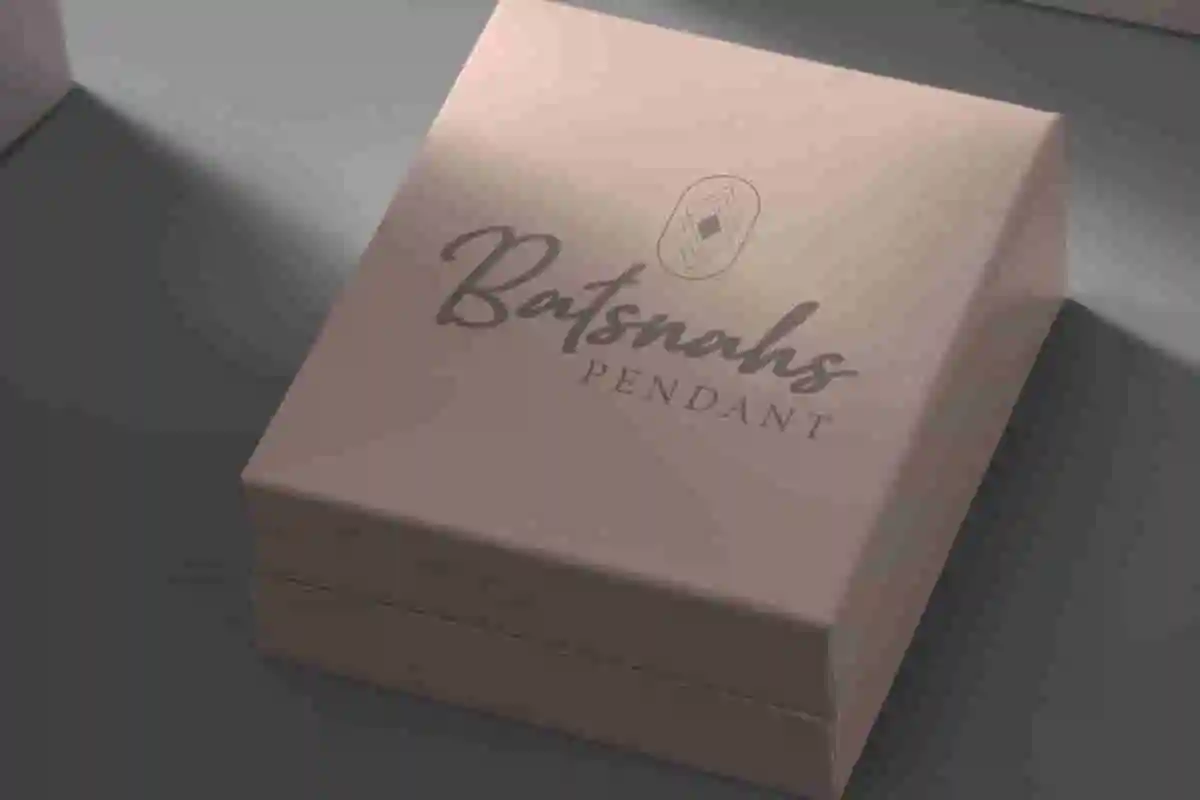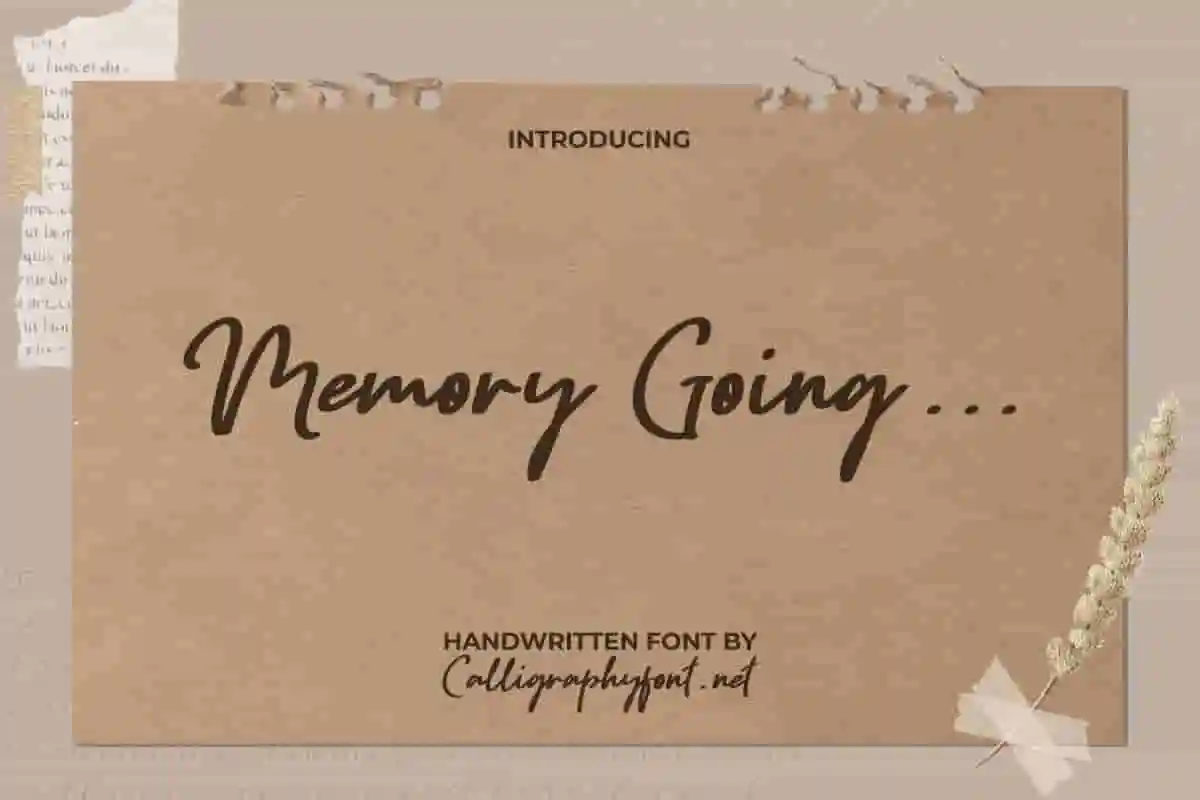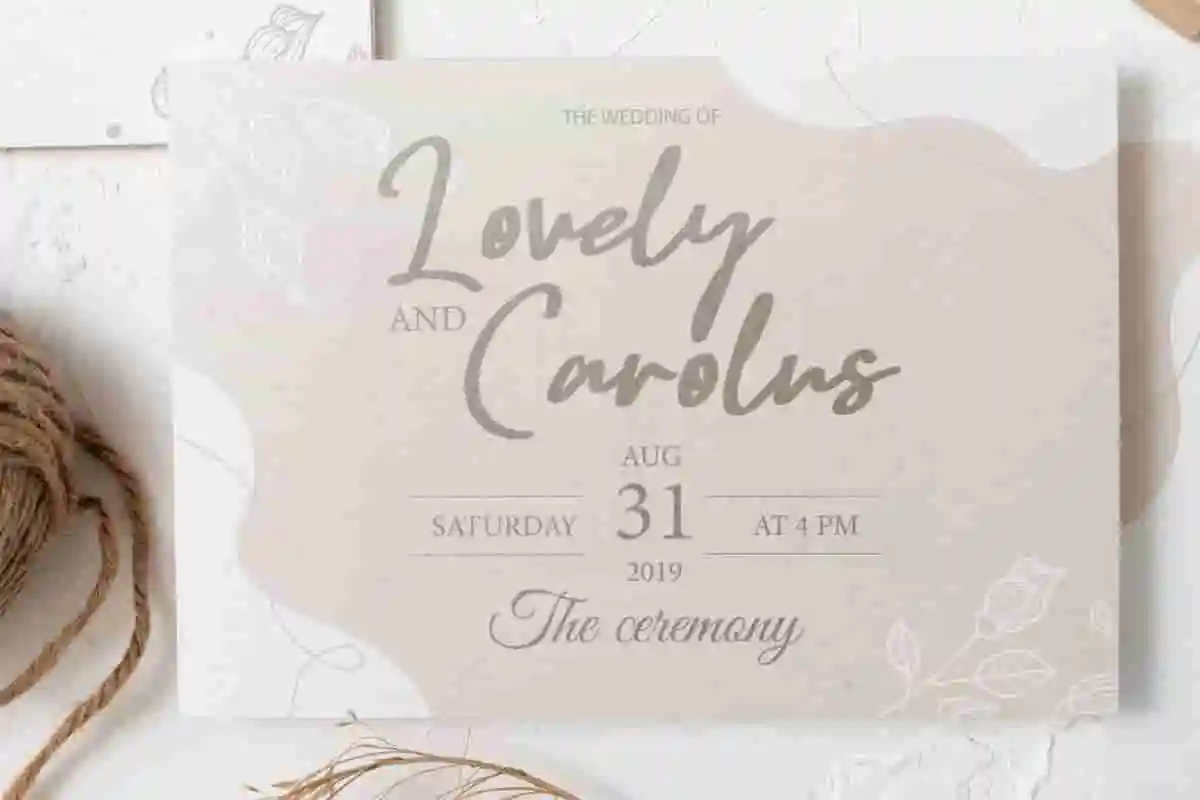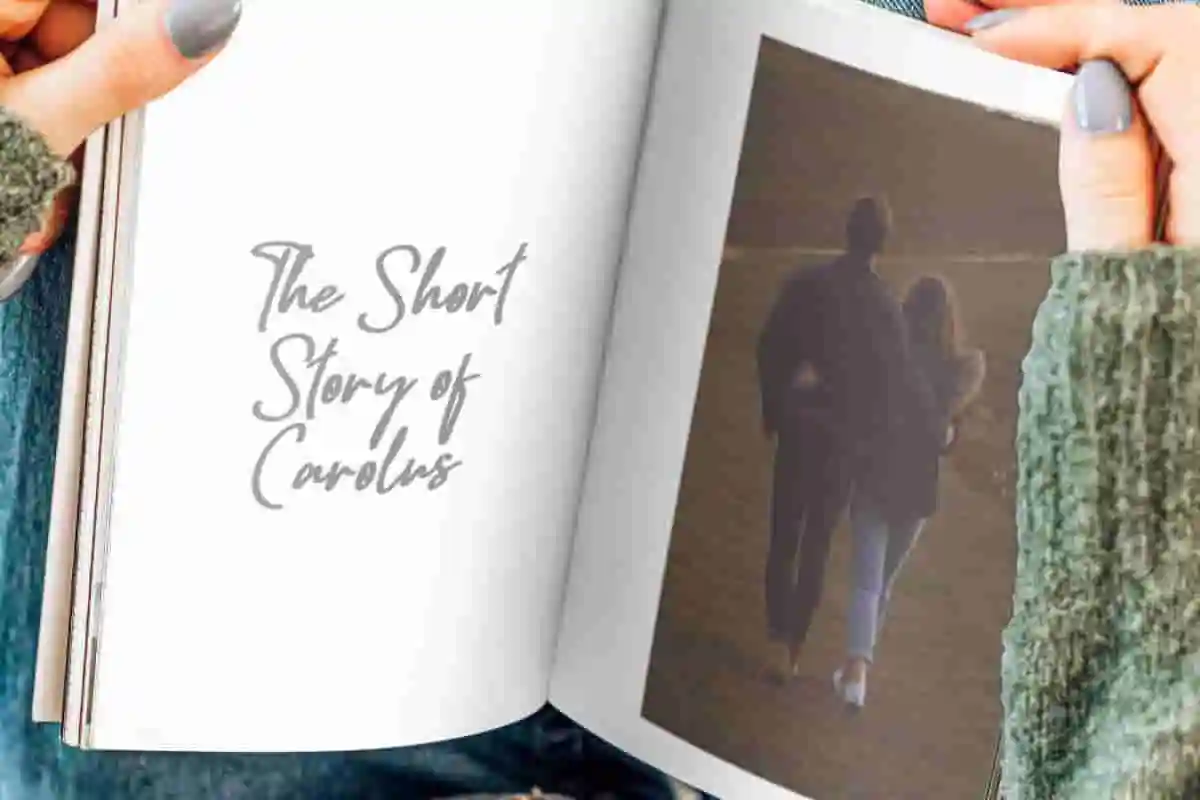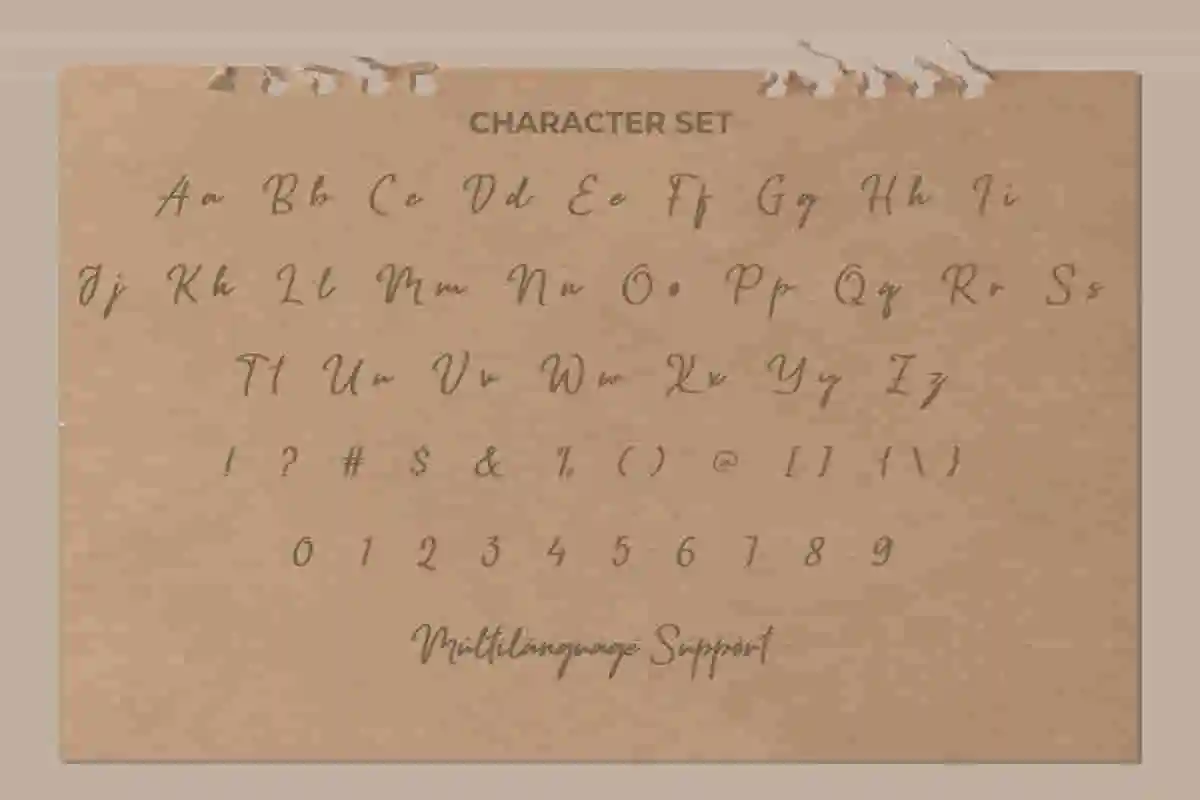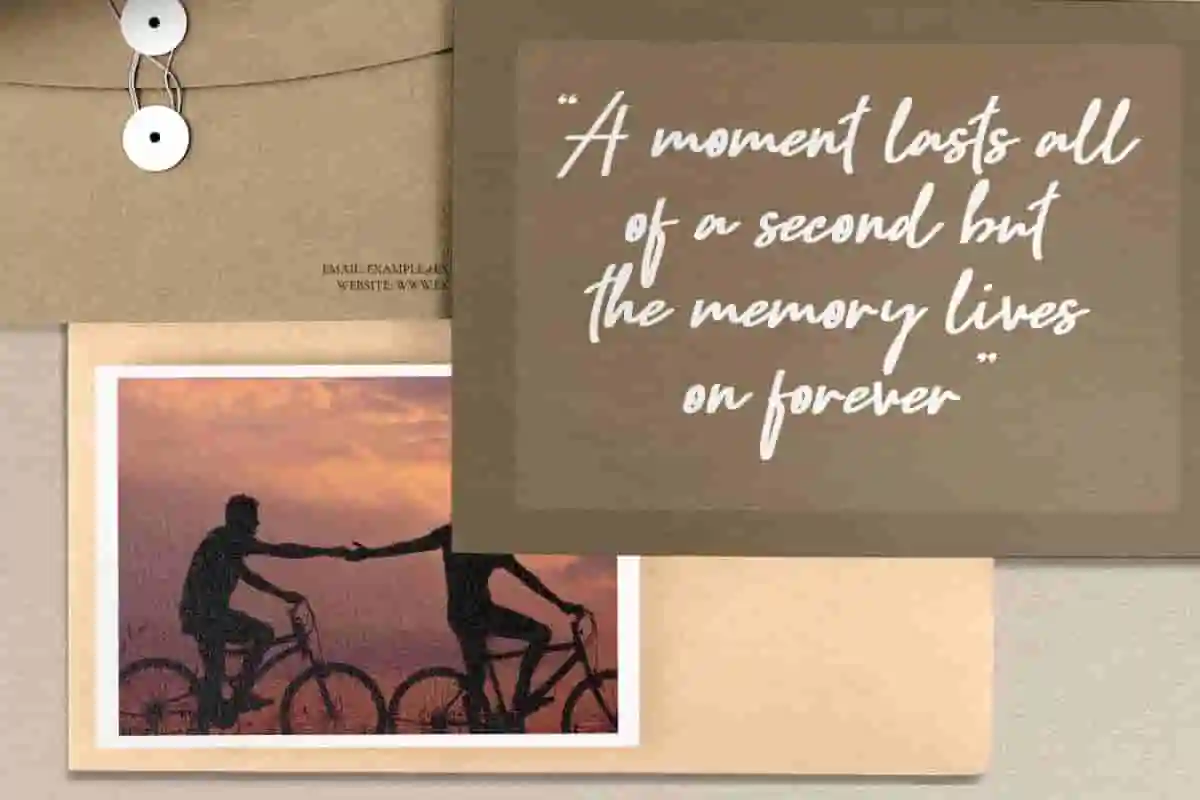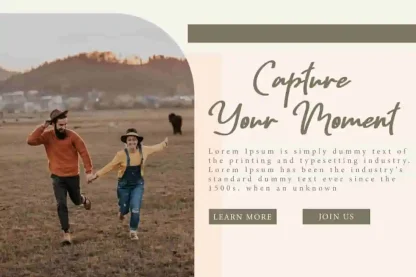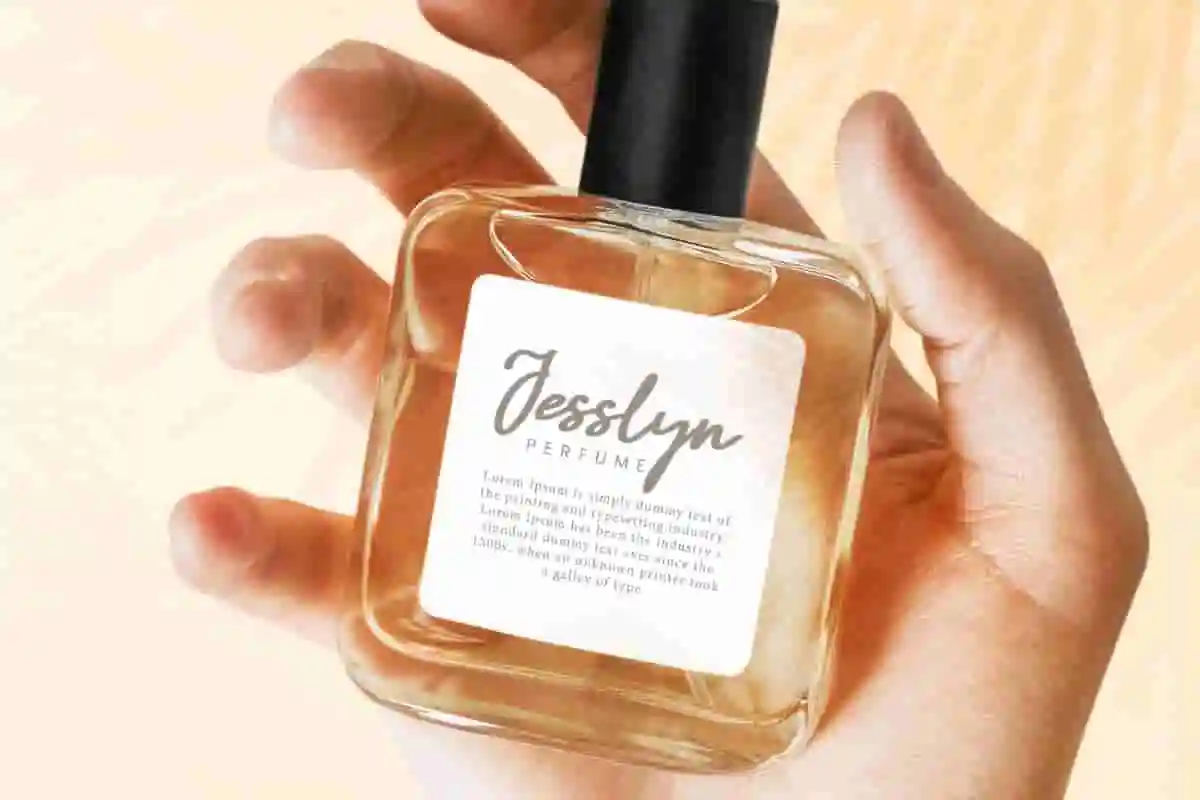
Memory Going Font
Memory Going Font is a timeless script handwritten font that will provide you a variety of lovely letters for any work design yo create!
Memory Going Font is a beautiful script handwritten font. This font has a natural handwriting style like in a diary which can jog your memory when you see it. It will be good to perfect any project design, such as stationery, invitation, label, website page, custom design, marketing material, poster, menu, cover, flyer, brand image, brochure, signage, screen print, sticker, thank you card, title, and many more!
Memory Going Font can make every design stunning and beautiful, so it can be used by various industries, such as fashion, event or wedding organizer, advertising, beauty product, content creator, graphic design, handicraft, homeware, interior design, printing, publishing, etc.
Memory Going Font comes with a full set of Uppercase and Lowercase Basic Characters, Number, a large range of Punctuation, and Symbol. It also comes with multilingual character support. Ready to use both on Windows machine or Mac with simple installations. It’s tested to work well in the Adobe Apps (Illustrator, Adobe InDesign, Adobe Photoshop) CorelDraw, and others. PUA Encode Characters means you can access all the characters easily – Fully accessible without additional design software.